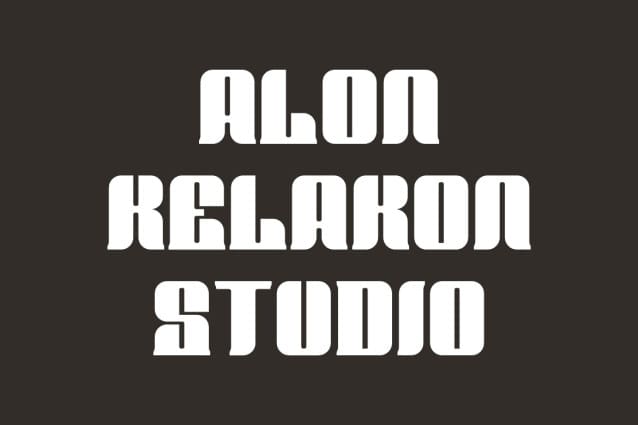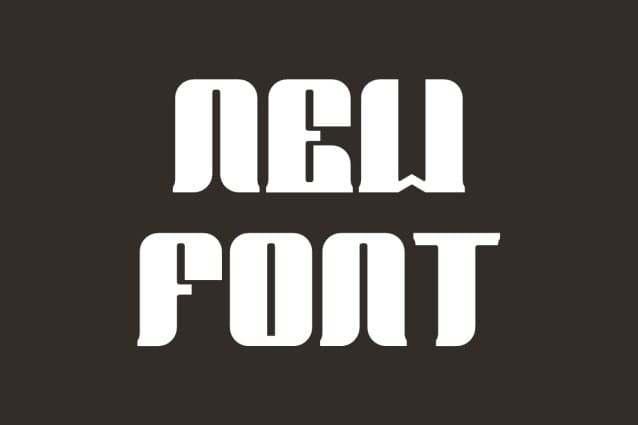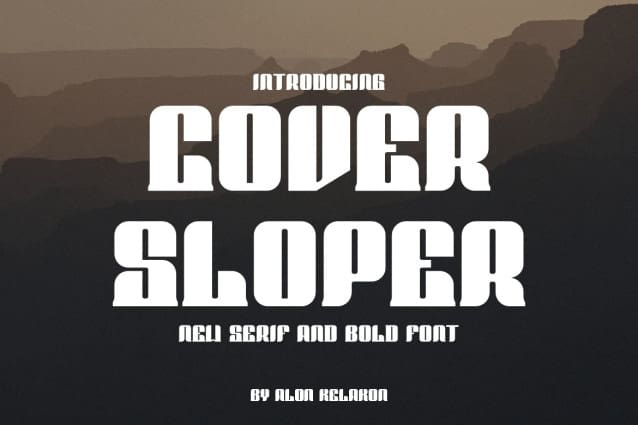
Cover Sloper Font
Cover Sloper Font is unique. Ready to use for your design, like labeling, movie screen, poster, movie title, concerts, album covers, logos and much more